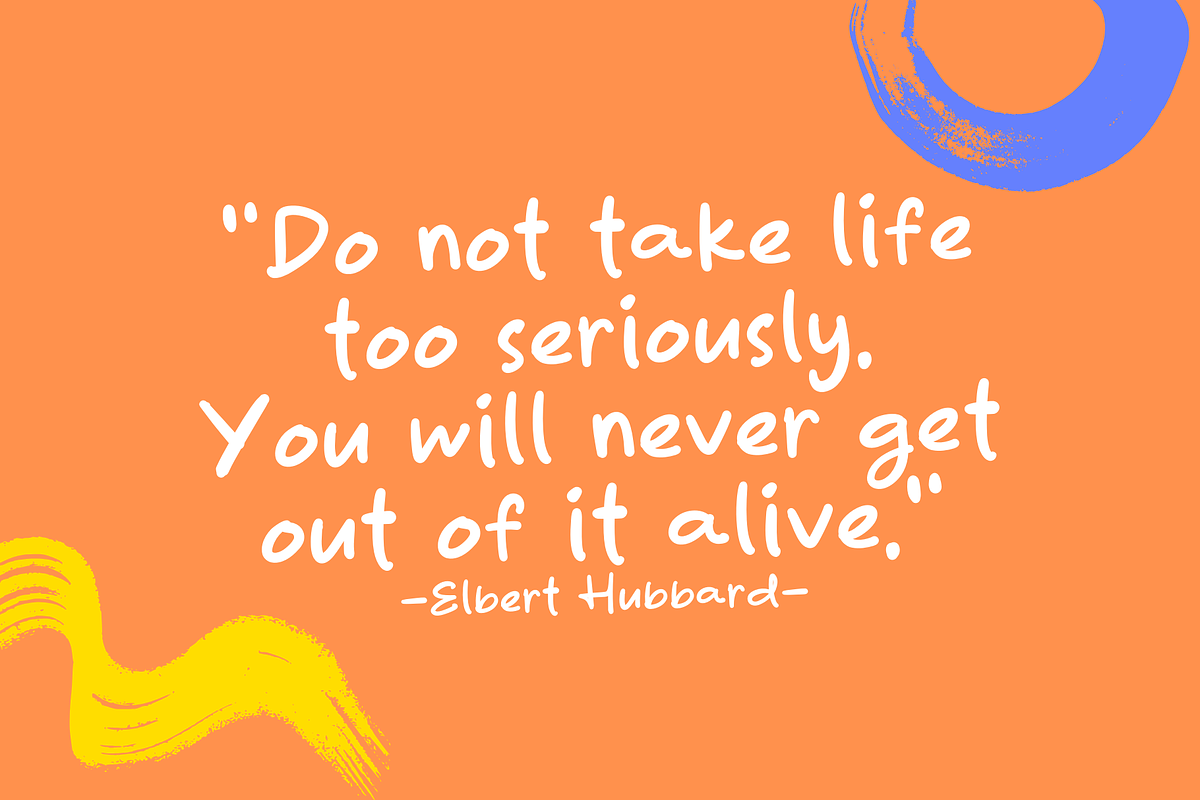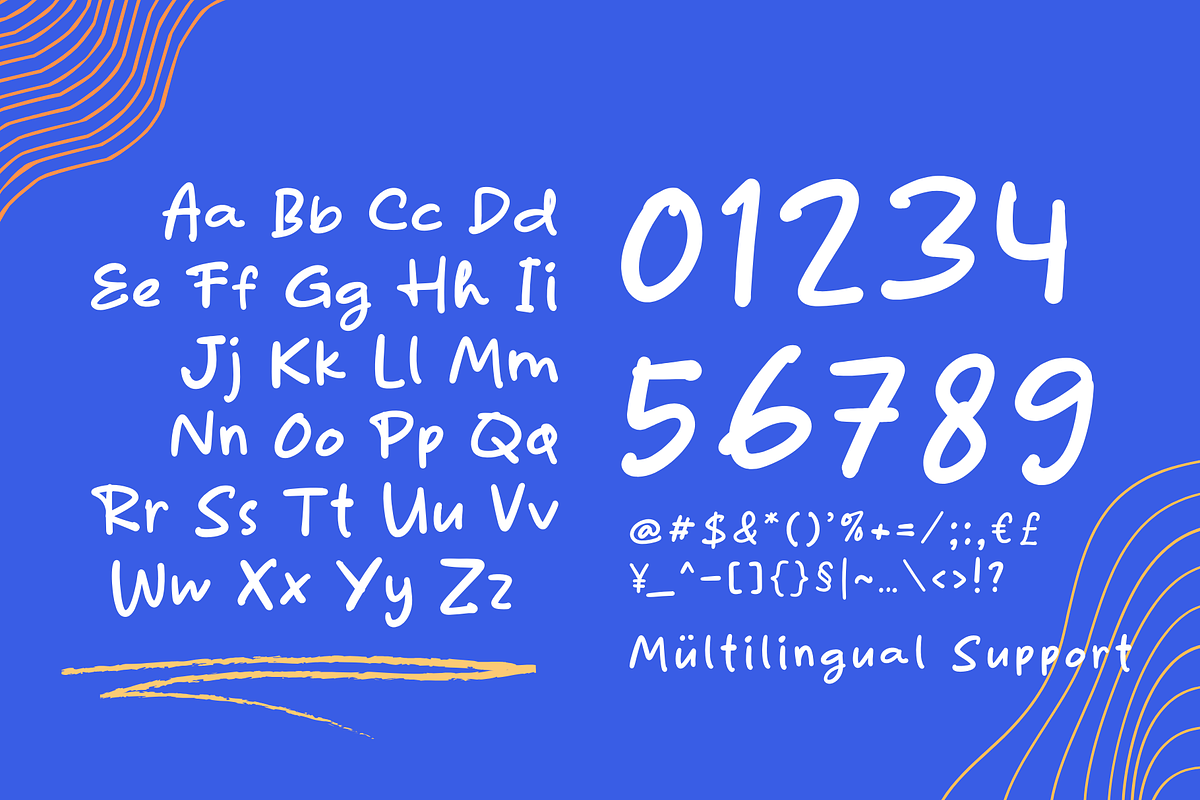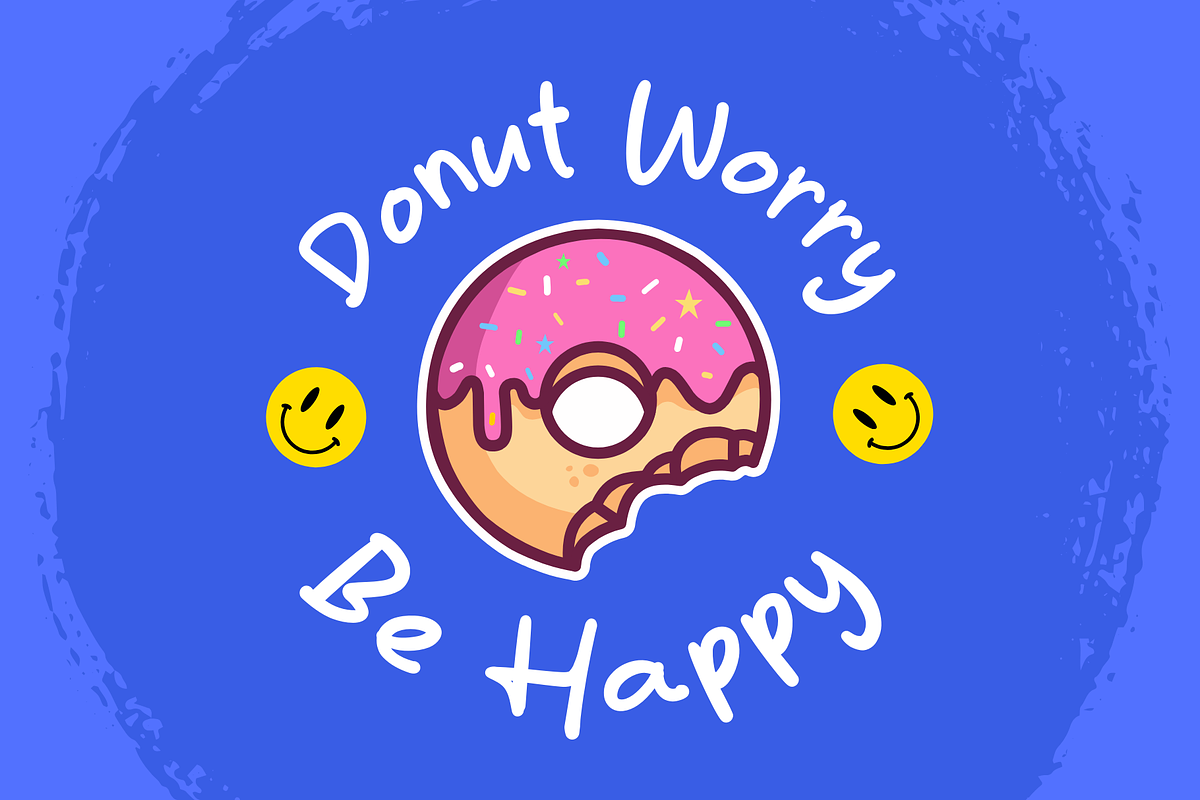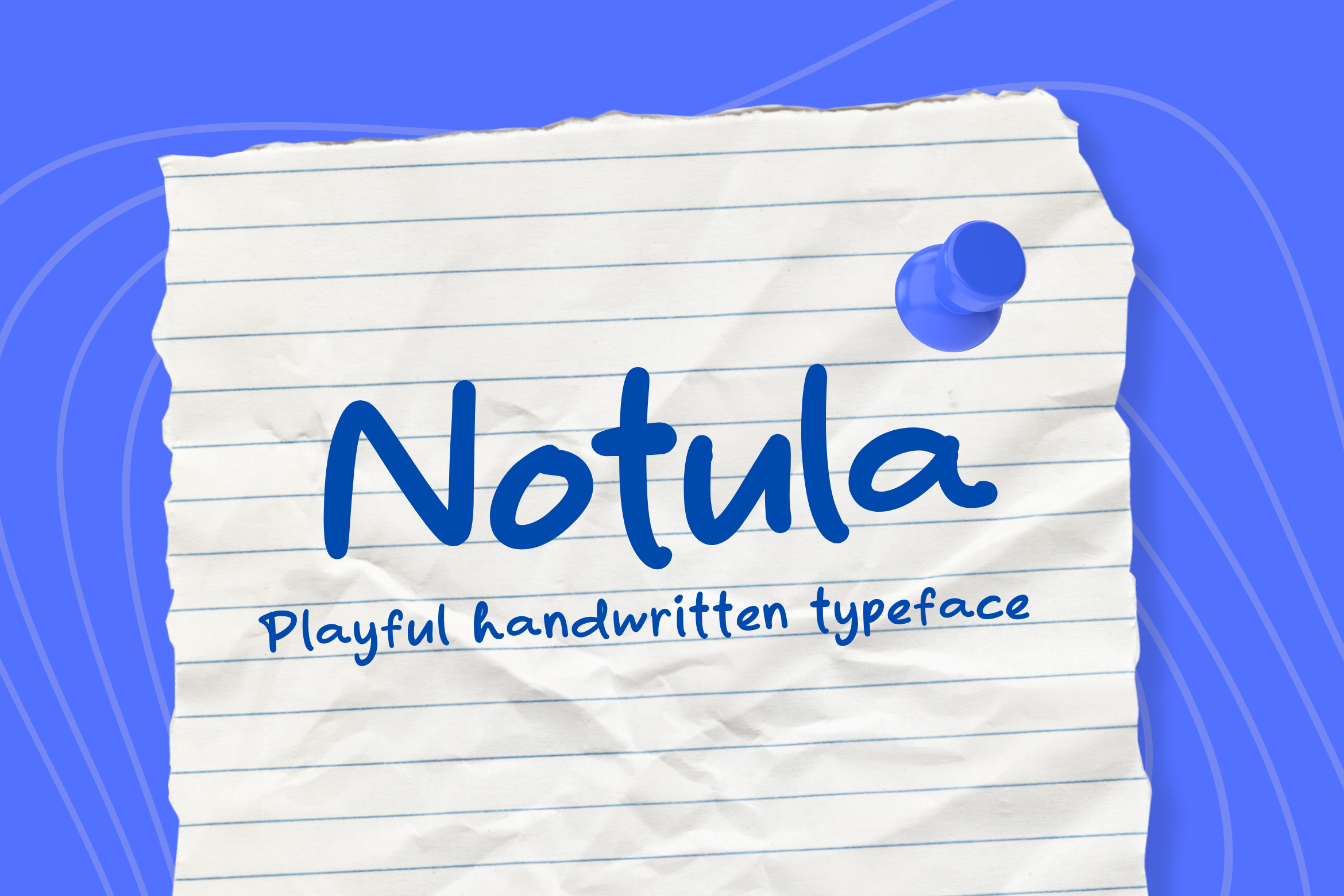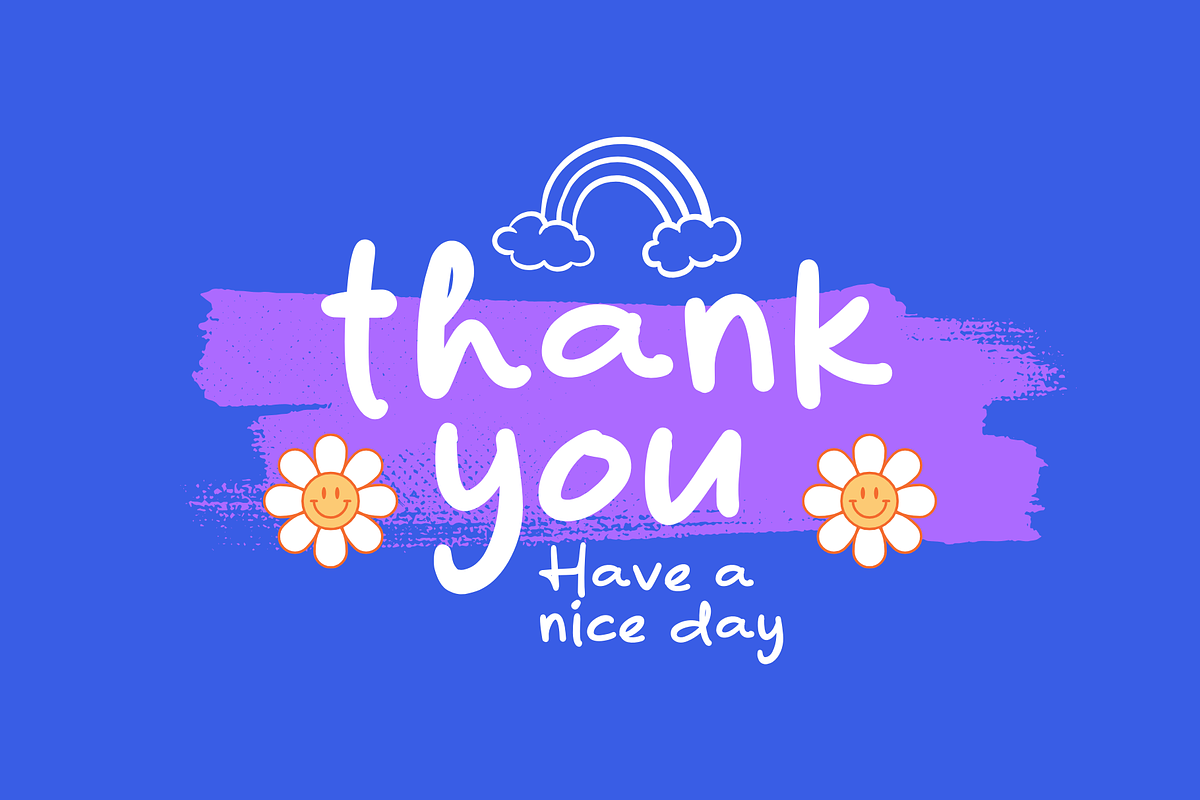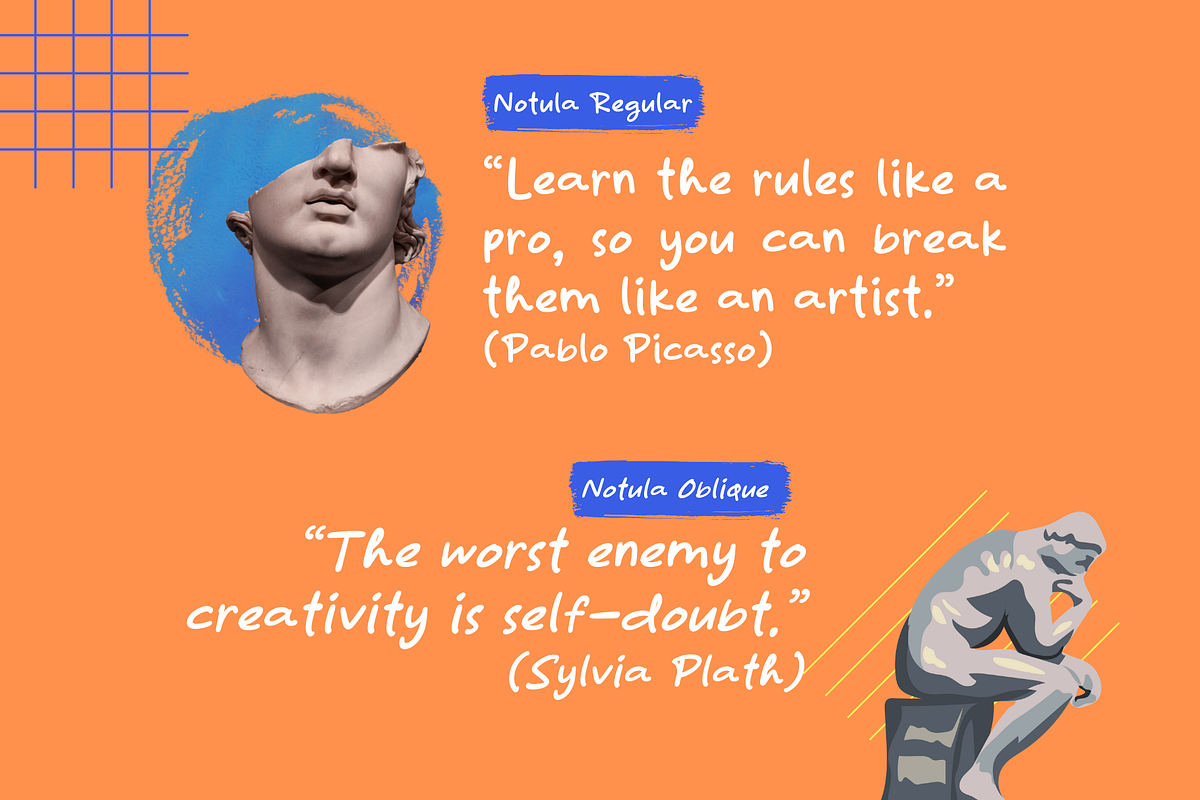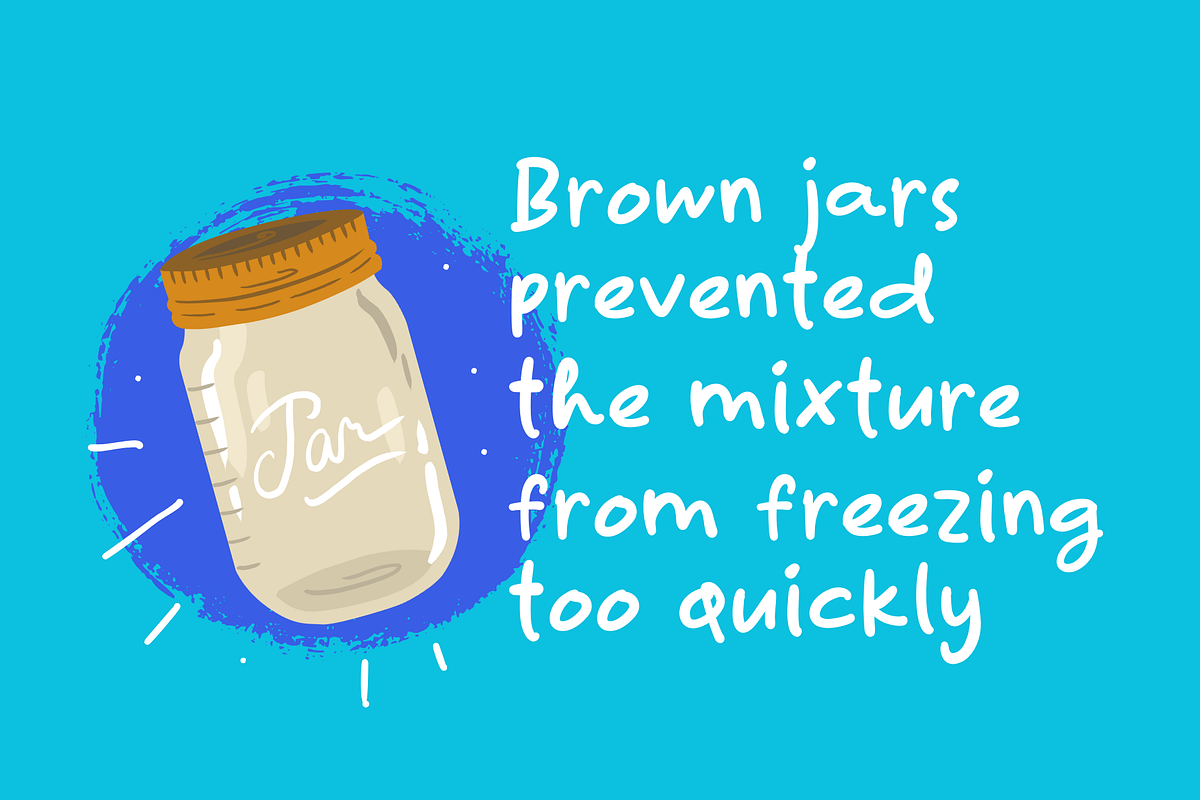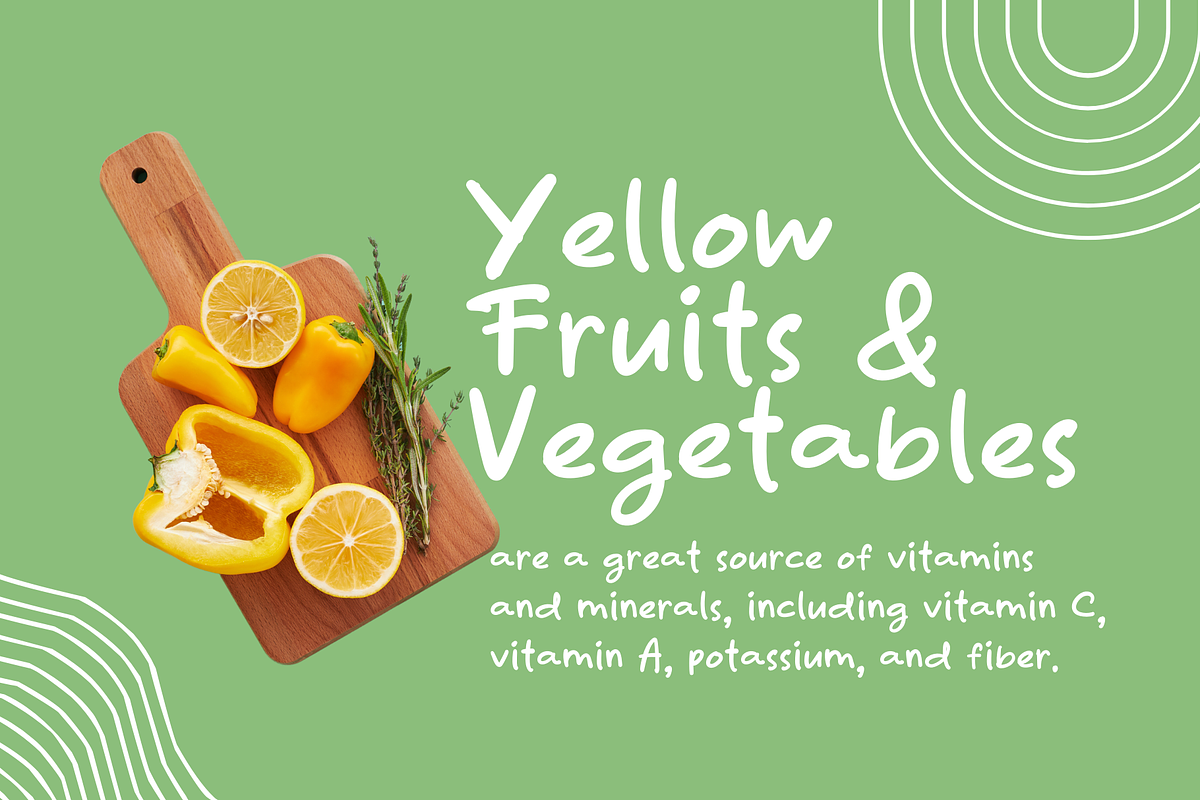
Notula Handwritten Font
Introducing Notula Font – a beautifully handcrafted font that captures the essence of handwritten charm and playfulness. Notula Font is meticulously designed to support multilingual usage, making it a versatile choice for your creative projects.
- Regular and oblique version
- Versatile usage: whether it's for invitations, branding, posters, or social media, Notula Font adds a delightful and distinctive flair to your digital projects.